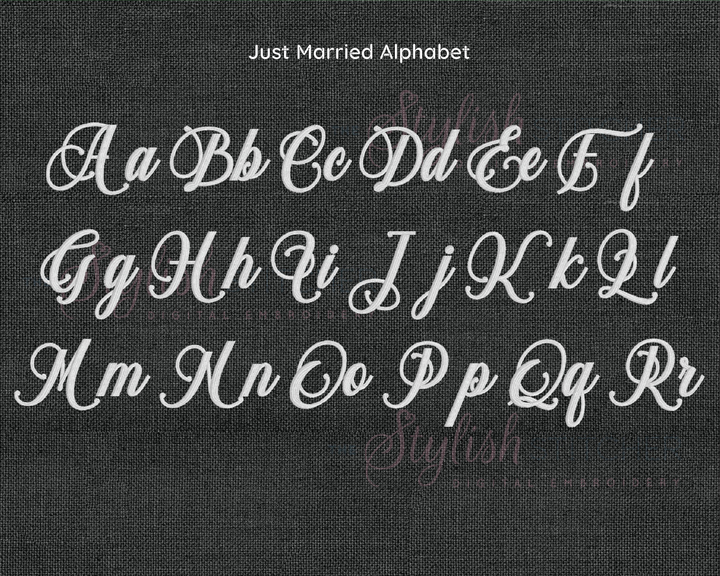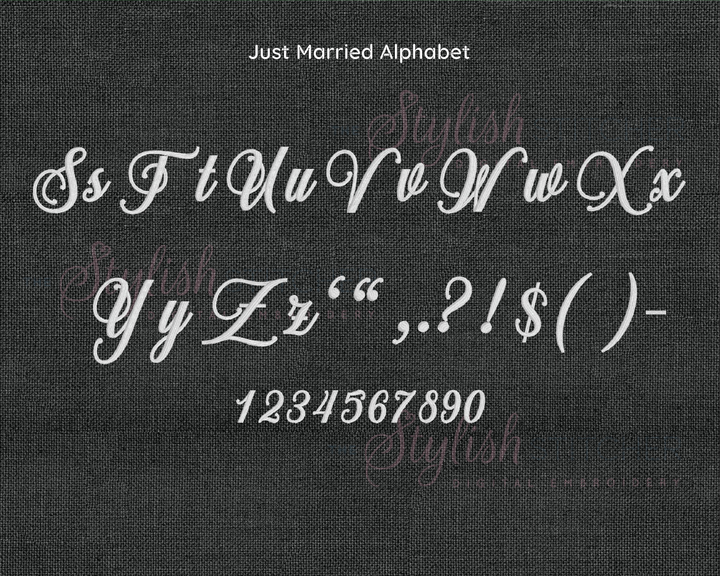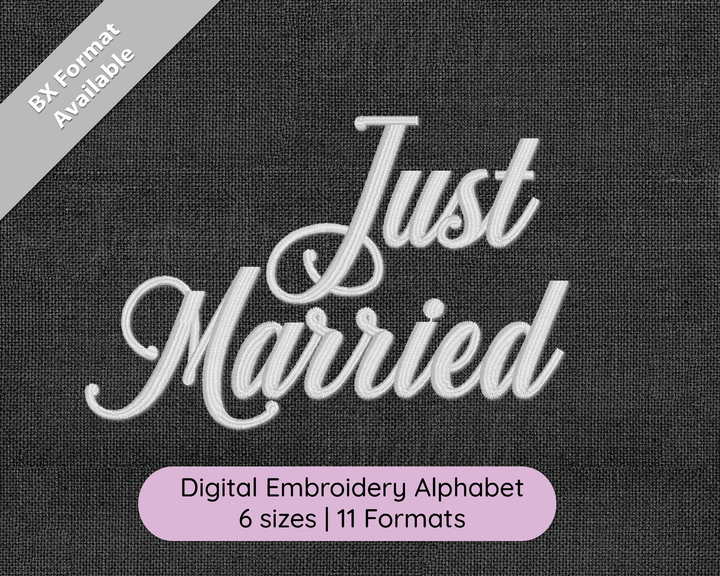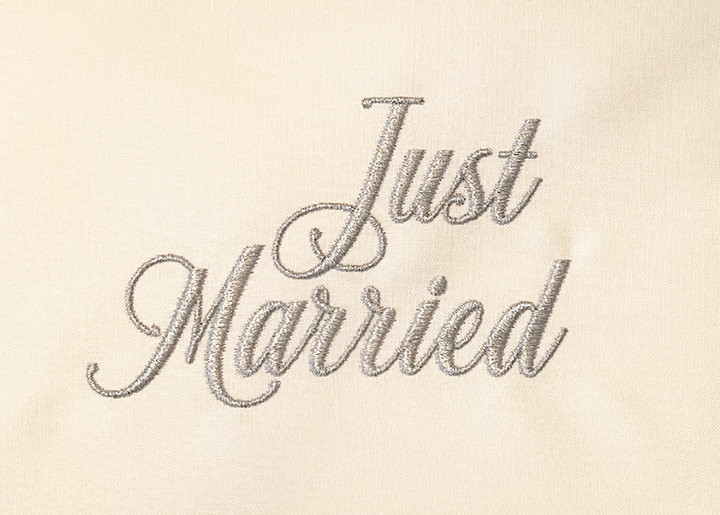
Just Married Digital Embroidery Font
Introducing Just Married, an embroidery font that effortlessly blends time-honored elegance with the spirit of today's trends. With every curve and flourish, Just Married adds a touch of charm and sophistication to your embroidery projects. Its cursive design beautifully enhances your creativity, allowing your textiles to not only speak, but to sing with a distinct, classy voice. Just Married isn't just a font - it's an embroidery experience that leaves a lasting impression.
This font includes:
- Upper case A thru Z.
- Lower case a thru z.
- Numbers 0-9.
- 8 punctuation symbols